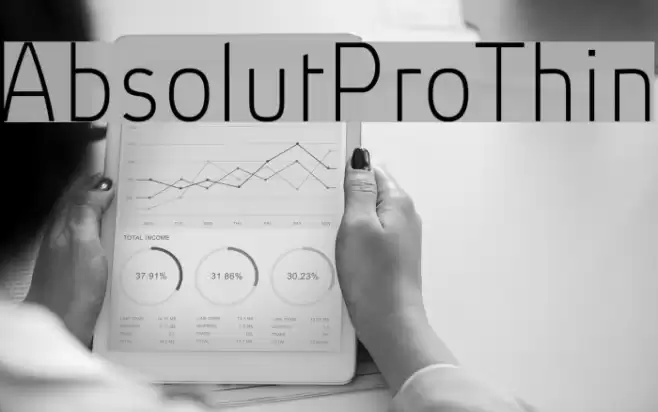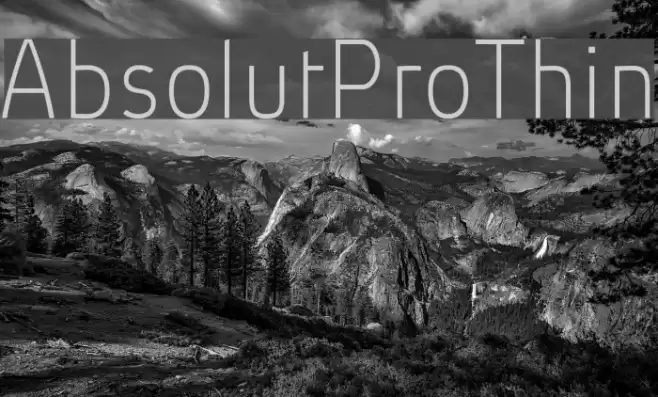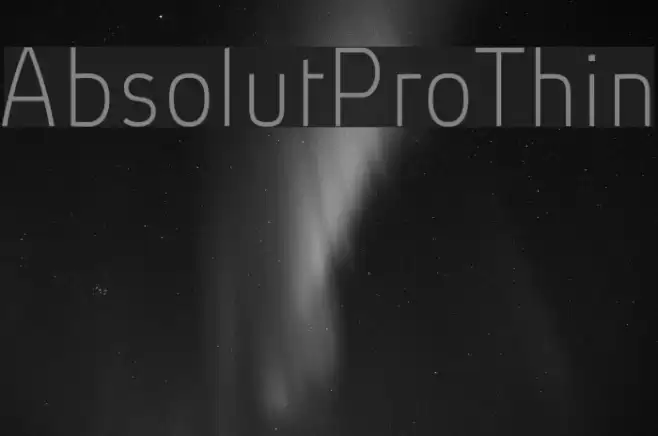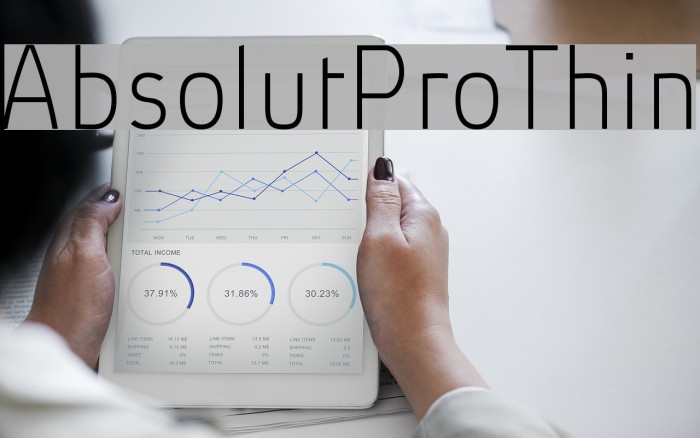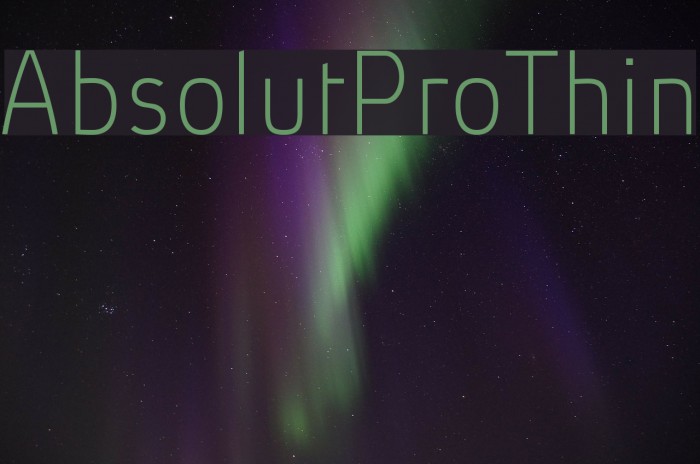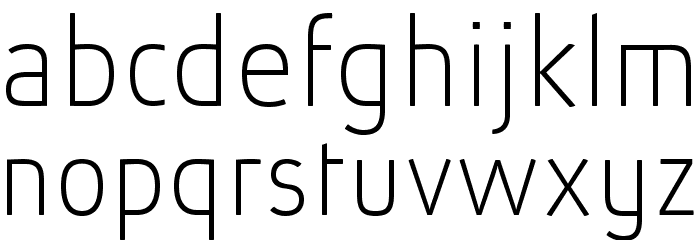
AbsolutPro-Thin
This font features a clean and modern sans-serif design with a thin weight, offering a sleek and minimalist appearance. The characters are well-proportioned with a consistent stroke width, providing a uniform and harmonious look. The uppercase and lowercase letters are distinct yet complementary, making it suitable for a variety of design applications. The font's simplicity and elegance make it ideal for contemporary projects that require a touch of sophistication without being overly ornate.
A modern, thin sans-serif font with a sleek and minimalist design.
- Proposed Projects: Ideal for branding, editorial design, web design, and minimalist posters.
- Weight: Light